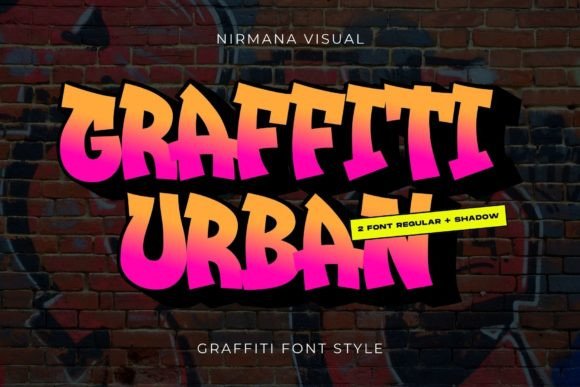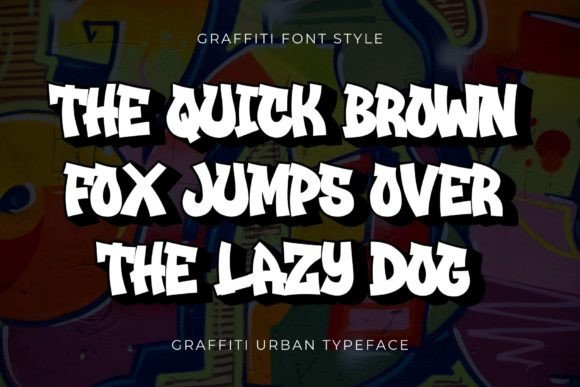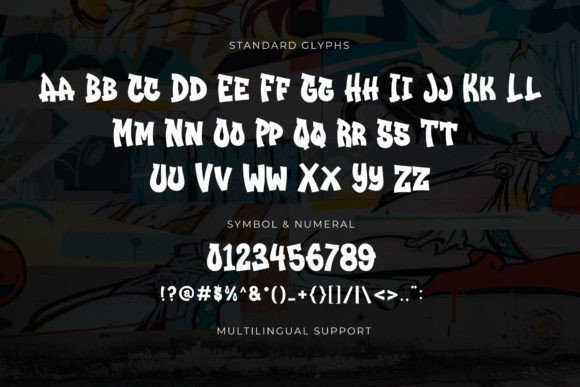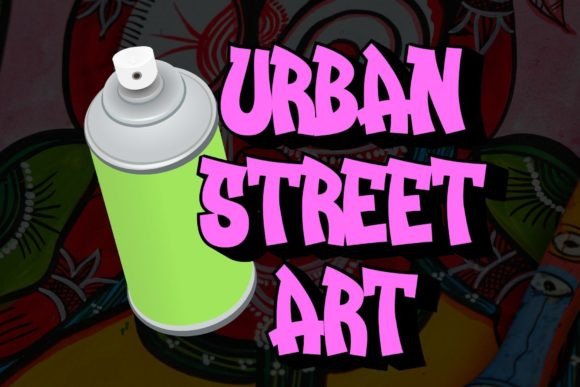
Graffiti Urban Font
Inspired by Graffiti designs, Graffiti Urban offers beautiful typographic harmony for a diversity of design projects, including logos & branding, social media posts, advertisements & product designs.